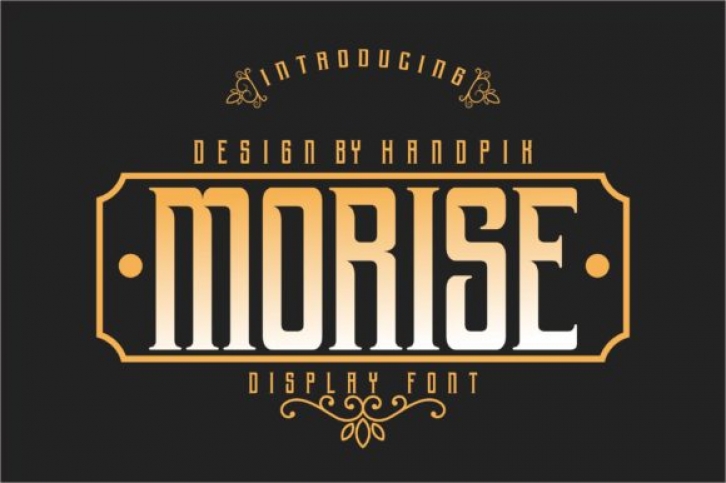
Morise is an incredibly unique display font. Masterfully designed to become a true favorite, this font has the potential to bring each of your creative ideas to the highest level!